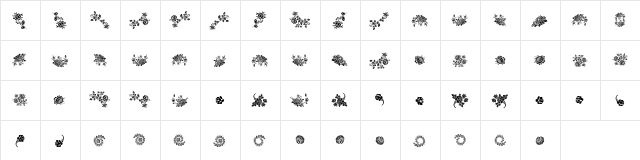
Floreale Two Regular
Design Context for Floreale Two Typeface
Floreale Two is a composed and adaptable typeface that performs quietly and consistently across a wide range of design contexts.